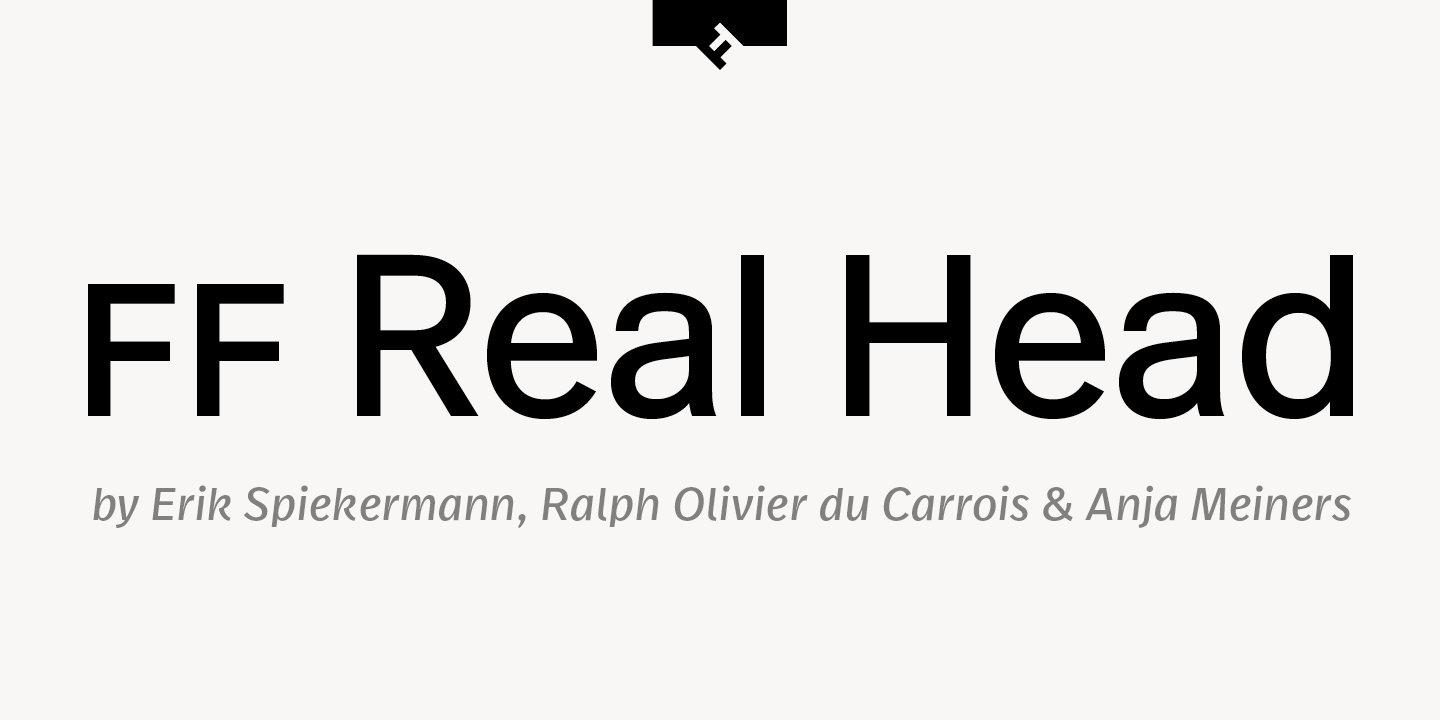
FF Real Head Font Free Download is a modern, bold display typeface designed to make a strong visual impact. With its clean lines and distinctive shapes, FF Real Head is perfect for headlines, logos, posters, branding, and any project that needs to stand out with a contemporary and dynamic style. The font offers a mix of sharp edges and balanced proportions, making it ideal for both creative and professional applications.
With FF Real Head Font Free Download, you’ll receive a complete set of uppercase letters, lowercase, numbers, and essential punctuation, offering versatility for various design needs. Whether you're creating bold promotional materials, developing a modern logo, or designing eye-catching headlines, this font ensures clarity and a confident visual presence.
Add boldness and clarity to your projects with FF Real Head Font Free Download. Its striking design makes it the perfect choice for projects that need to convey strength, modernity, and impact.